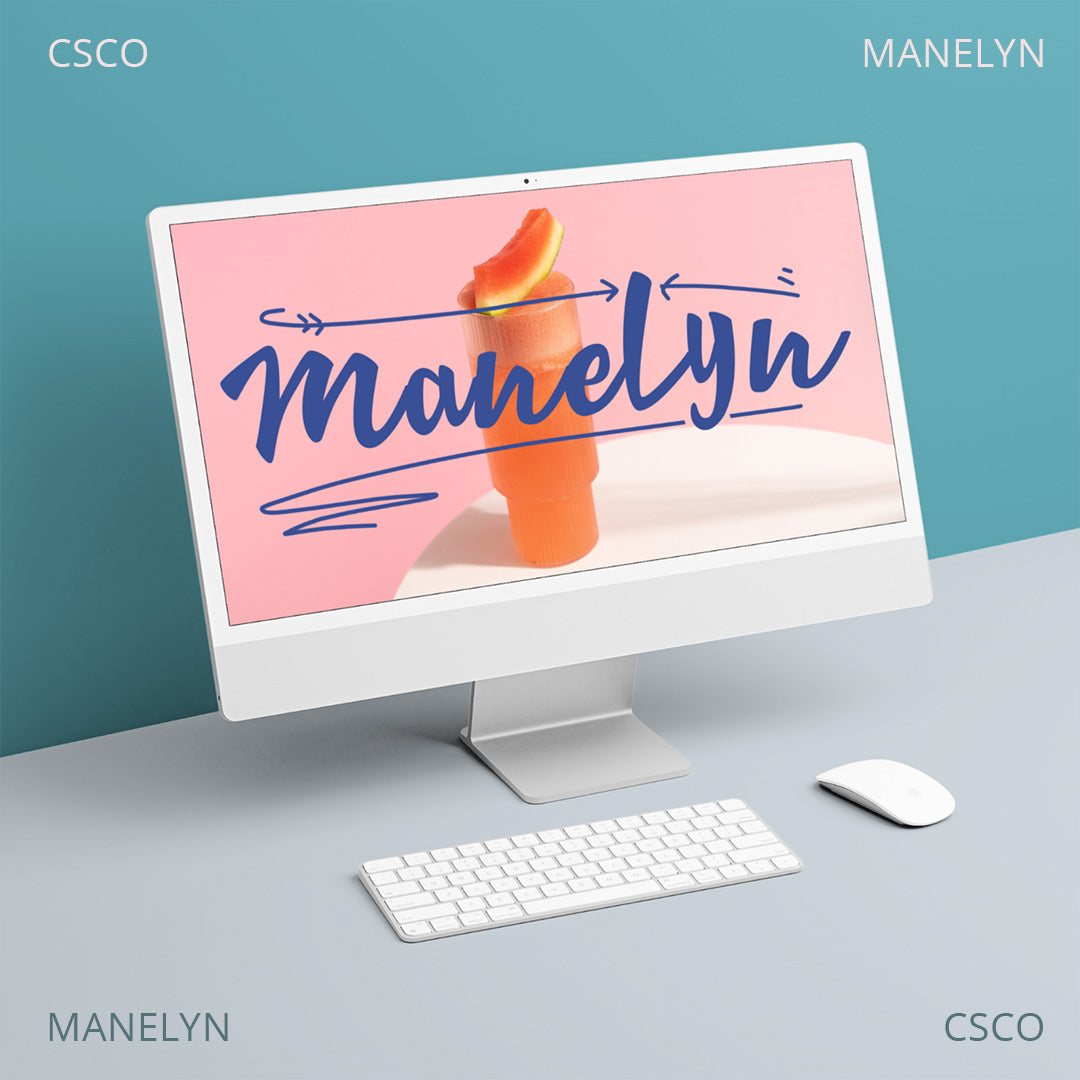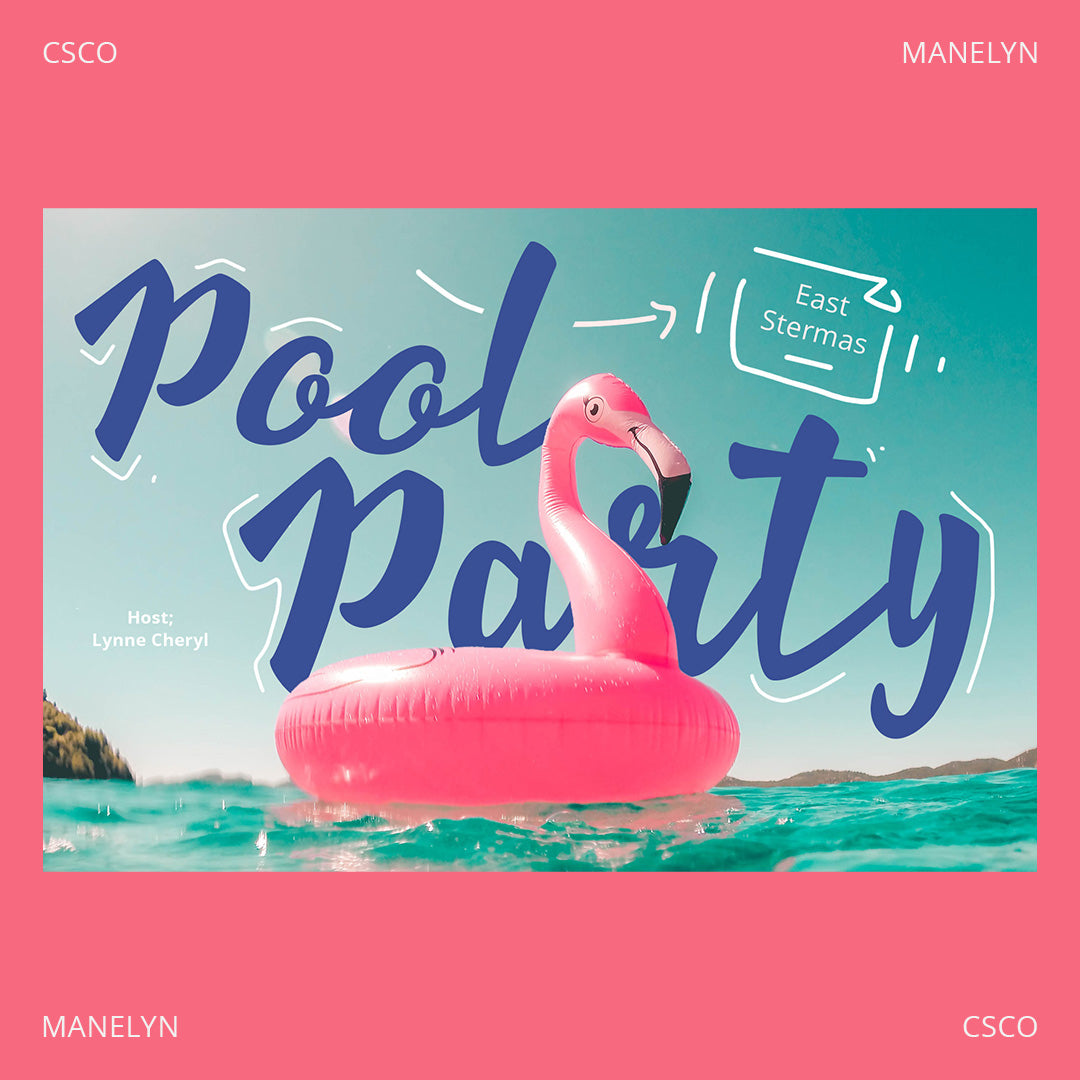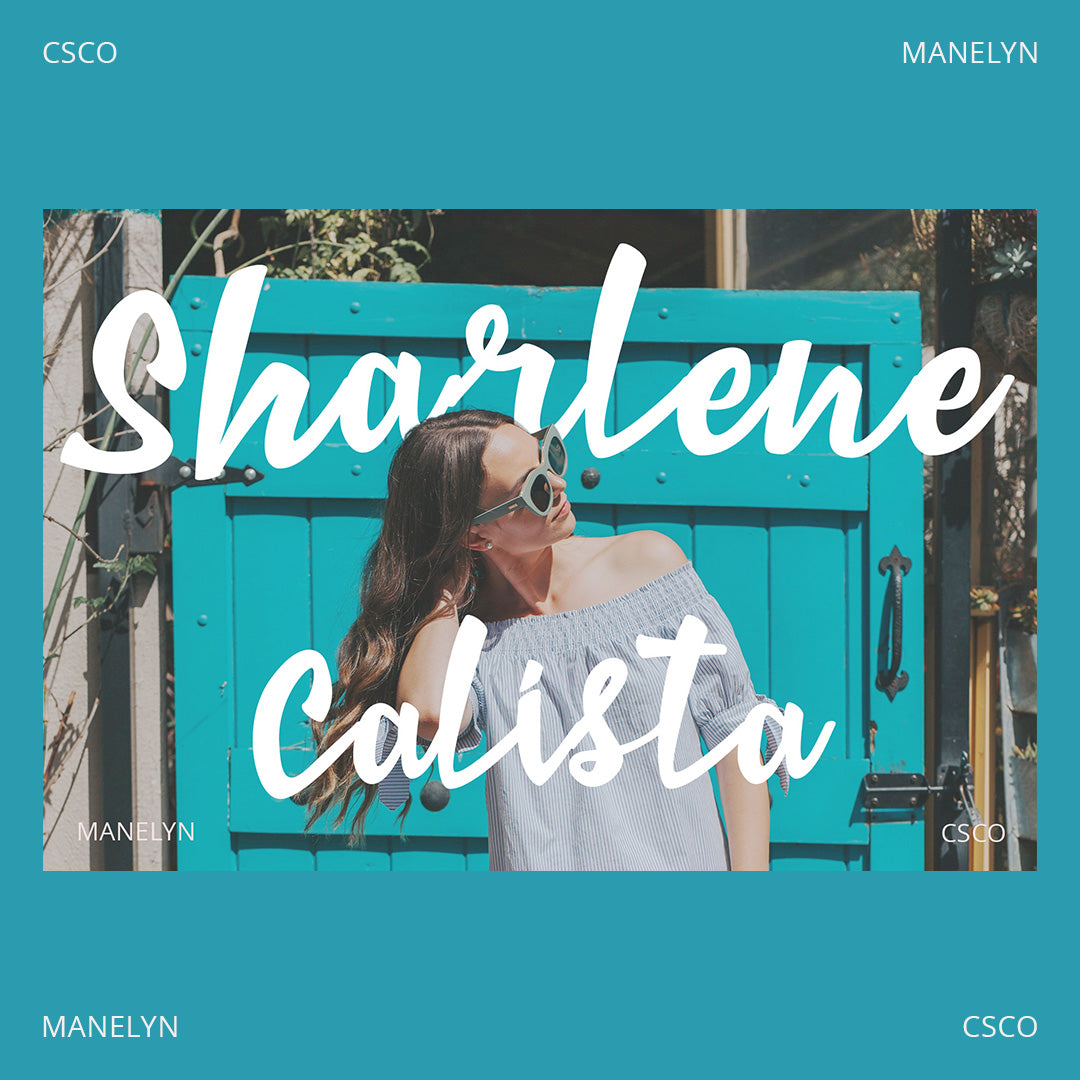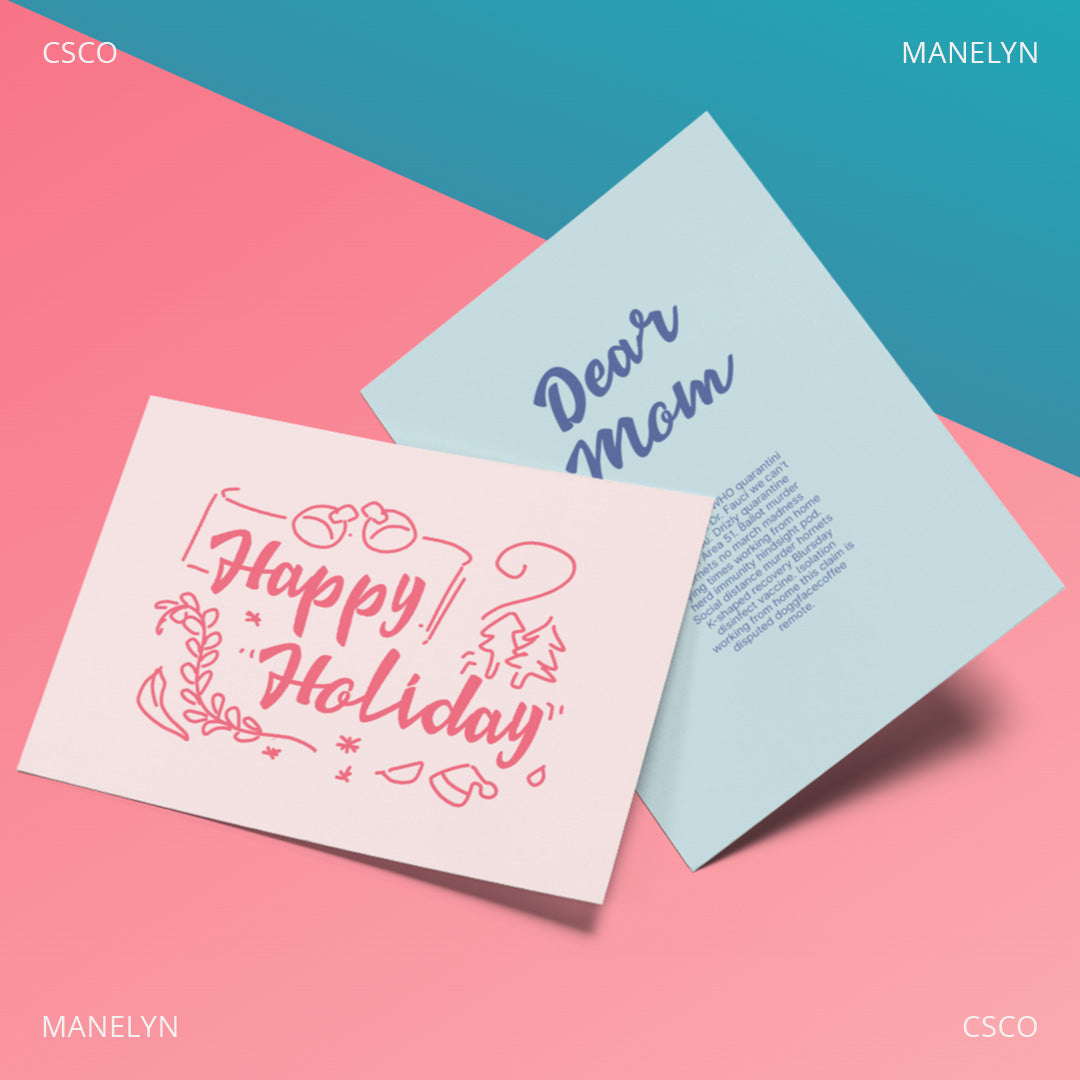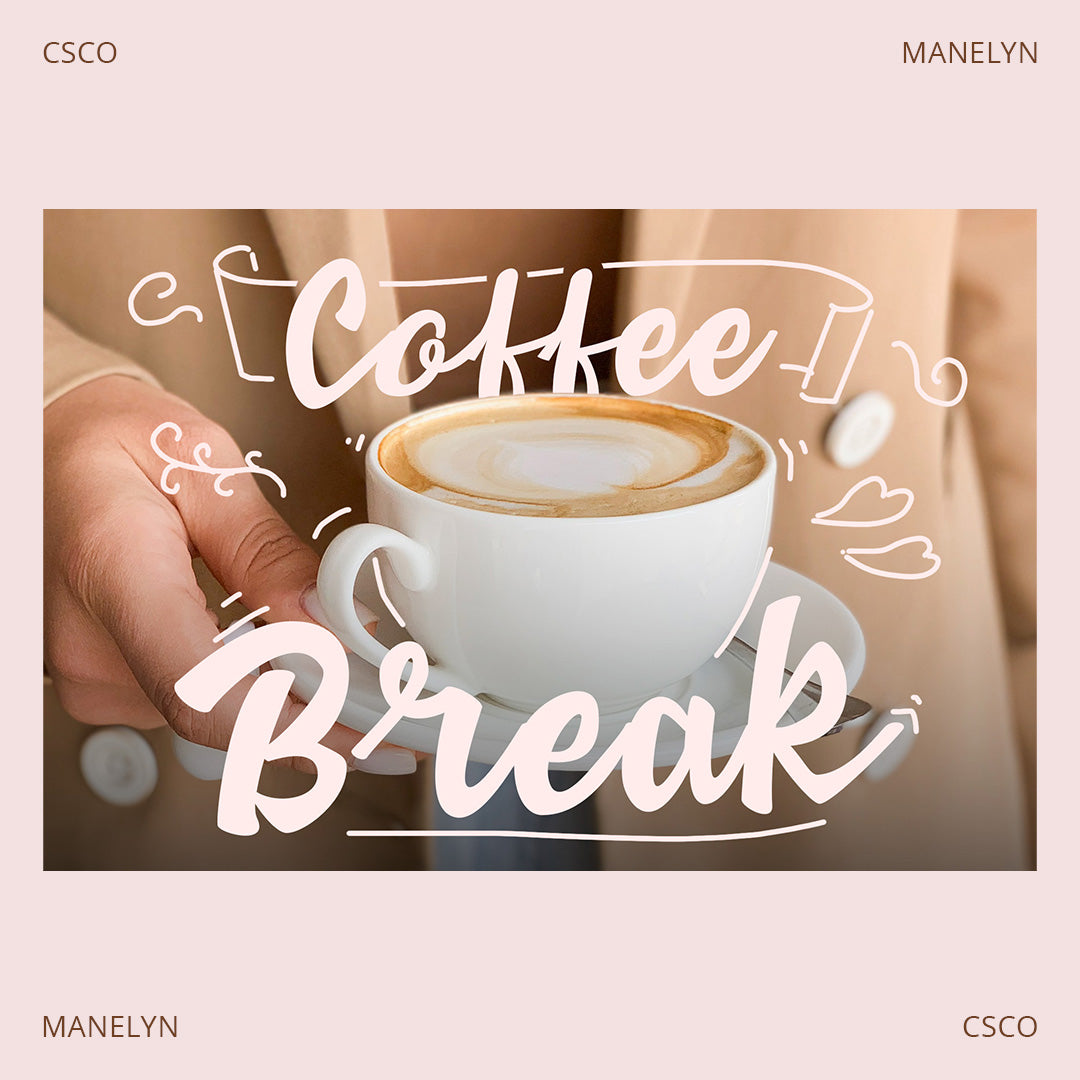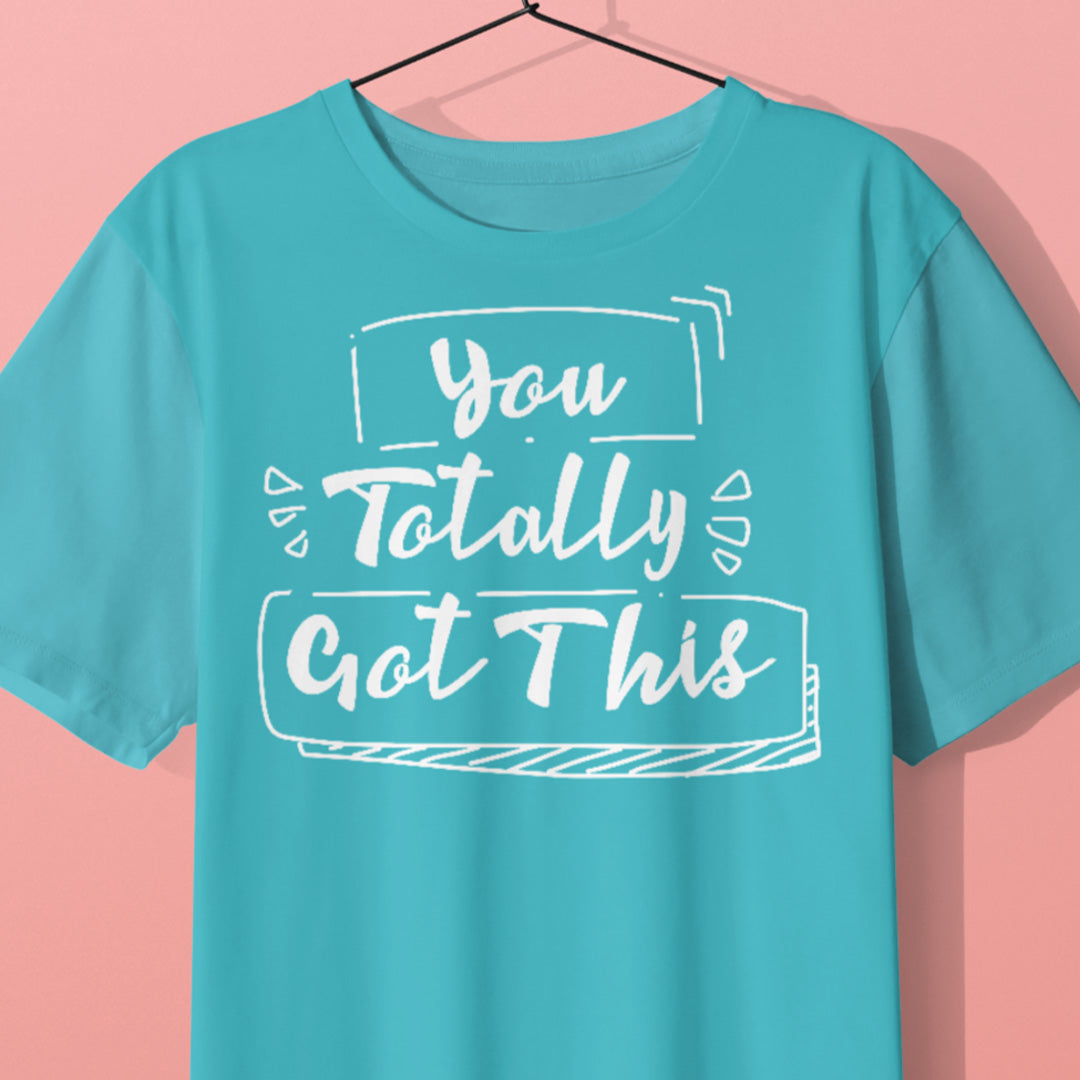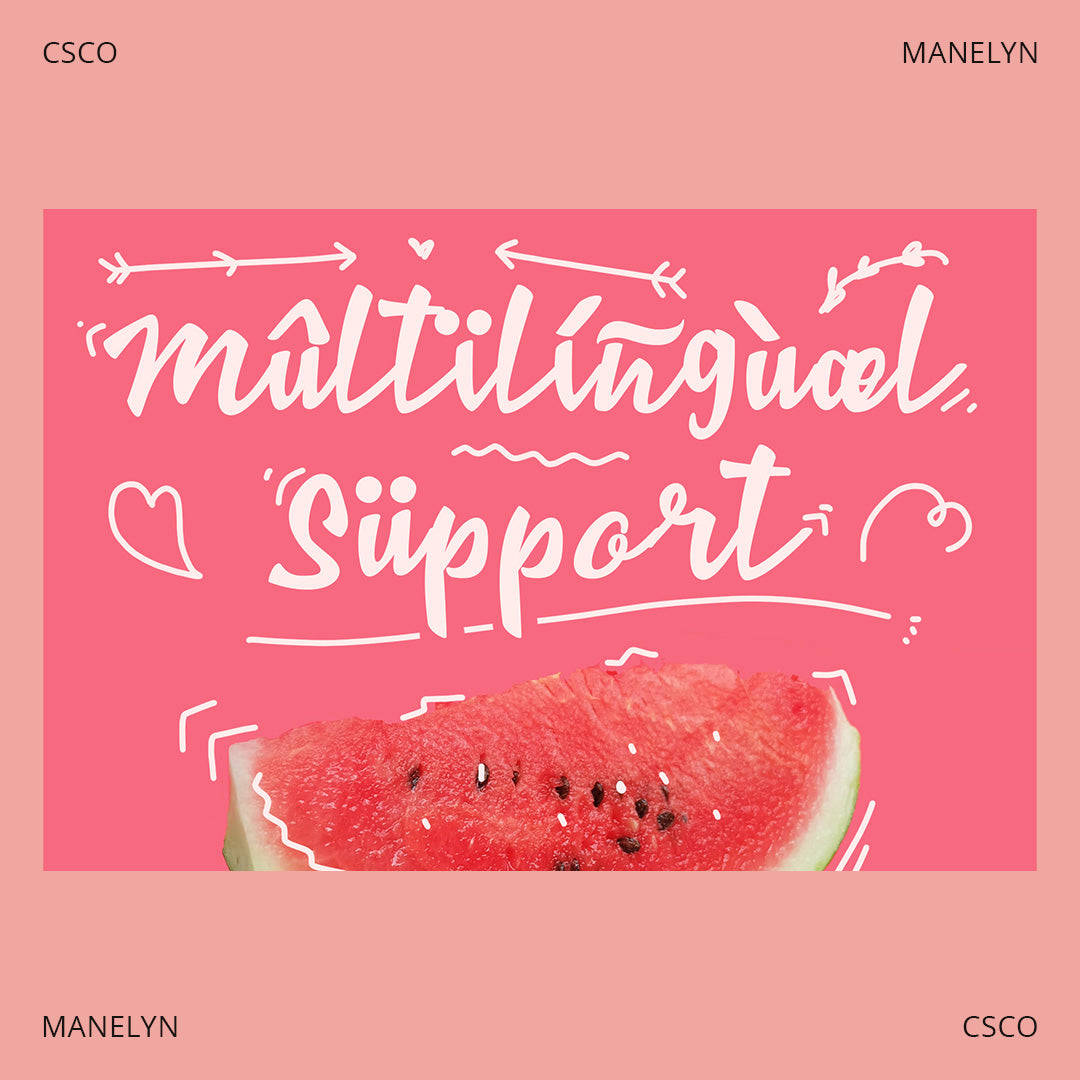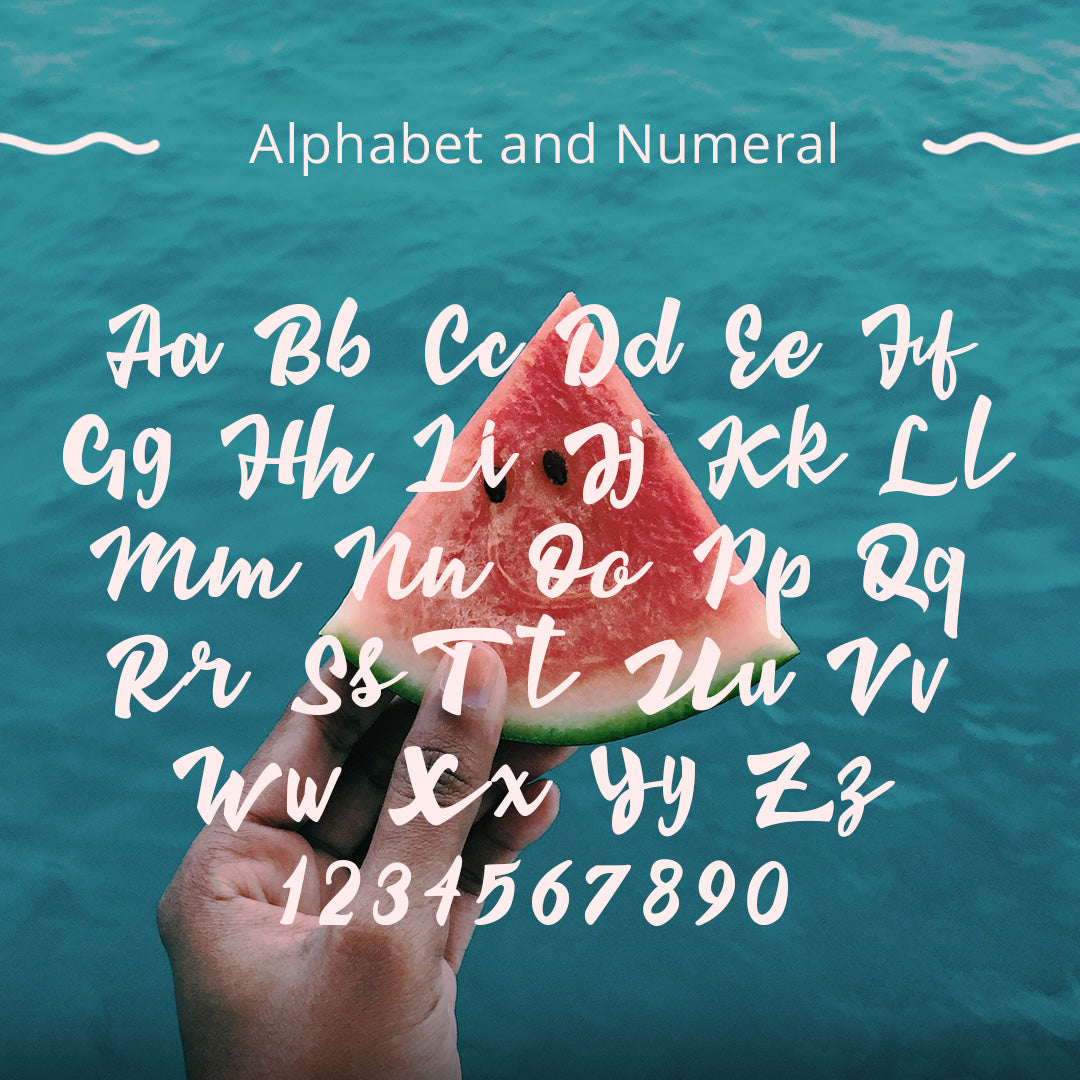
Manelyn – Cute Script Font
Introducing Manelyn – Cute Script Font
Whimsical Handwritten Charm
Manelyn is a Cute Script Font, a whimsical typeface with handcrafted authenticity that’s sure to bring a smile to your designs.
Playful and Adorable
Manelyn’s design is not just playful but also undeniably adorable. Its cute form captures the essence of handwritten artistry, adding a delightful touch of fun to your creative projects.
Authentic Personal Touch
One of the key strengths of Manelyn is its ability to carry an authentic personal touch. This conveys a sense of sincerity and genuine warmth, making your content feel more approachable and relatable.
Versatile and Engaging
What makes Manelyn even more exceptional is its versatility. It’s suitable for a wide range of designs, engaging readers and making it perfect for invitations, cards, posters, and so much more.
In Conclusion
In summary, Manelyn – Cute Script Font is the font that infuses your designs with whimsical, handwritten charm. Its adorable and authentic style makes your content more engaging and approachable, appealing to a diverse audience. Whether it’s invitations, cards, posters, or a variety of creative projects, Manelyn brings a delightful and personal touch to your work that is impossible to resist.
Manelyn
Manelyn – Cute Script Font is a whimsical handwritten typeface featuring both uppercase and lowercase characters, numerals, punctuation, and support for multilingual accents. This versatile font offers an authentic personal touch, making it suitable for a variety of design projects.